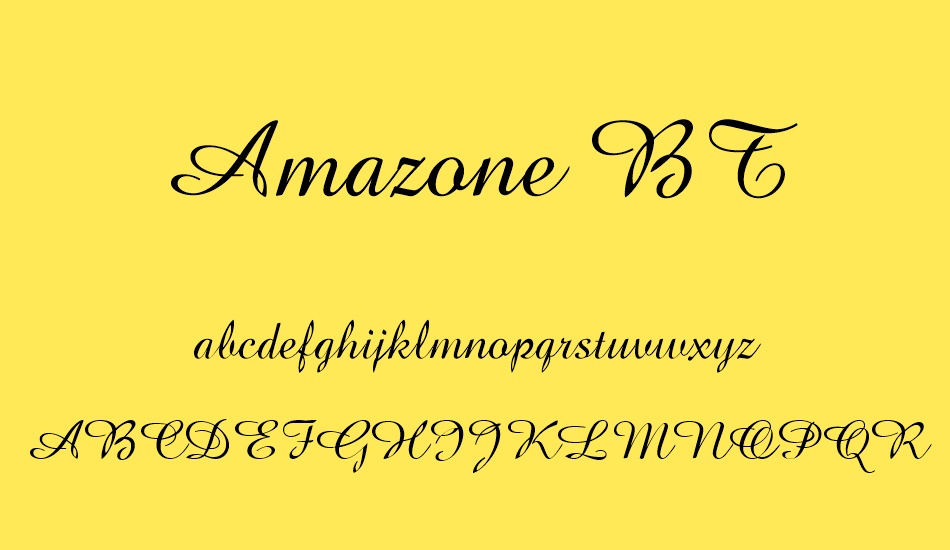
Amazone Bt Font
Amazone Bt Font - Votes, rated based on results identification. Web font amazone bt regular belongs to the categories calligraphy, decorative, lettering, script, valentine.
Votes, rated based on results identification. Web font amazone bt regular belongs to the categories calligraphy, decorative, lettering, script, valentine.
Web font amazone bt regular belongs to the categories calligraphy, decorative, lettering, script, valentine. Votes, rated based on results identification.
Votes, rated based on results identification. Web font amazone bt regular belongs to the categories calligraphy, decorative, lettering, script, valentine.
Web font amazone bt regular belongs to the categories calligraphy, decorative, lettering, script, valentine. Votes, rated based on results identification.
Votes, rated based on results identification. Web font amazone bt regular belongs to the categories calligraphy, decorative, lettering, script, valentine.
Web Font Amazone Bt Regular Belongs To The Categories Calligraphy, Decorative, Lettering, Script, Valentine.